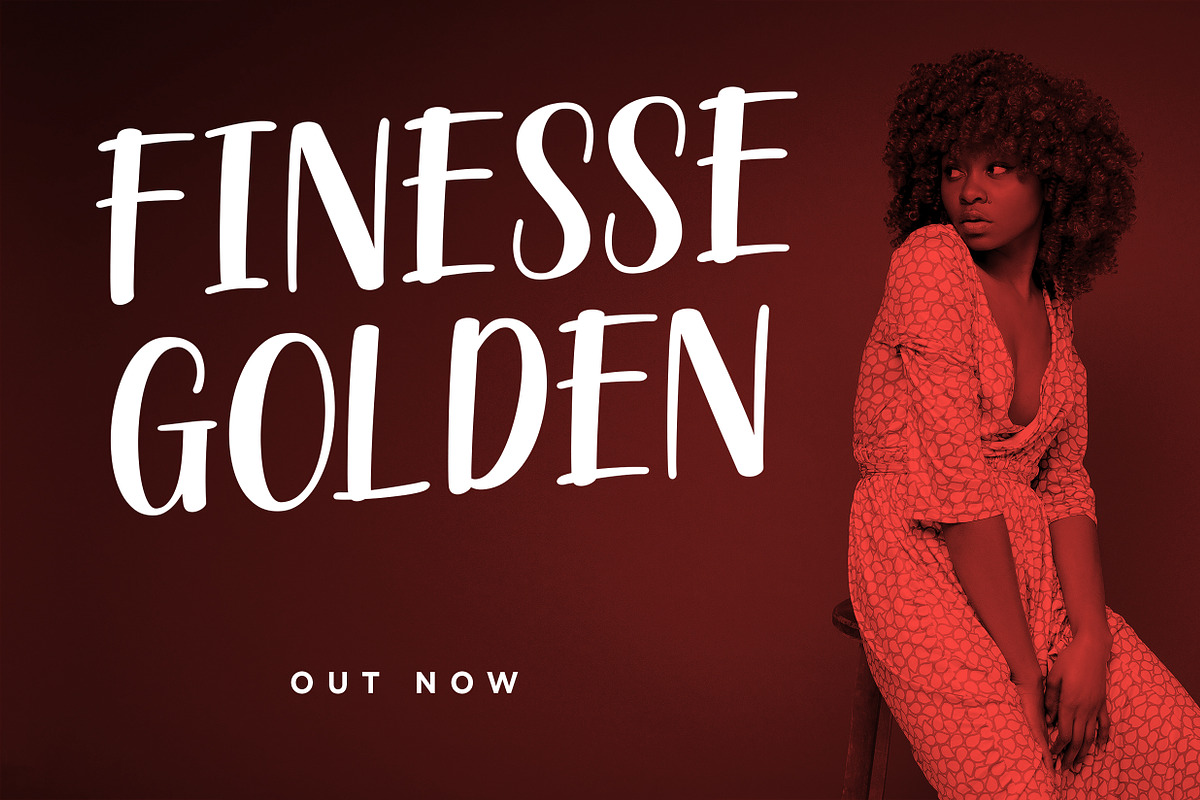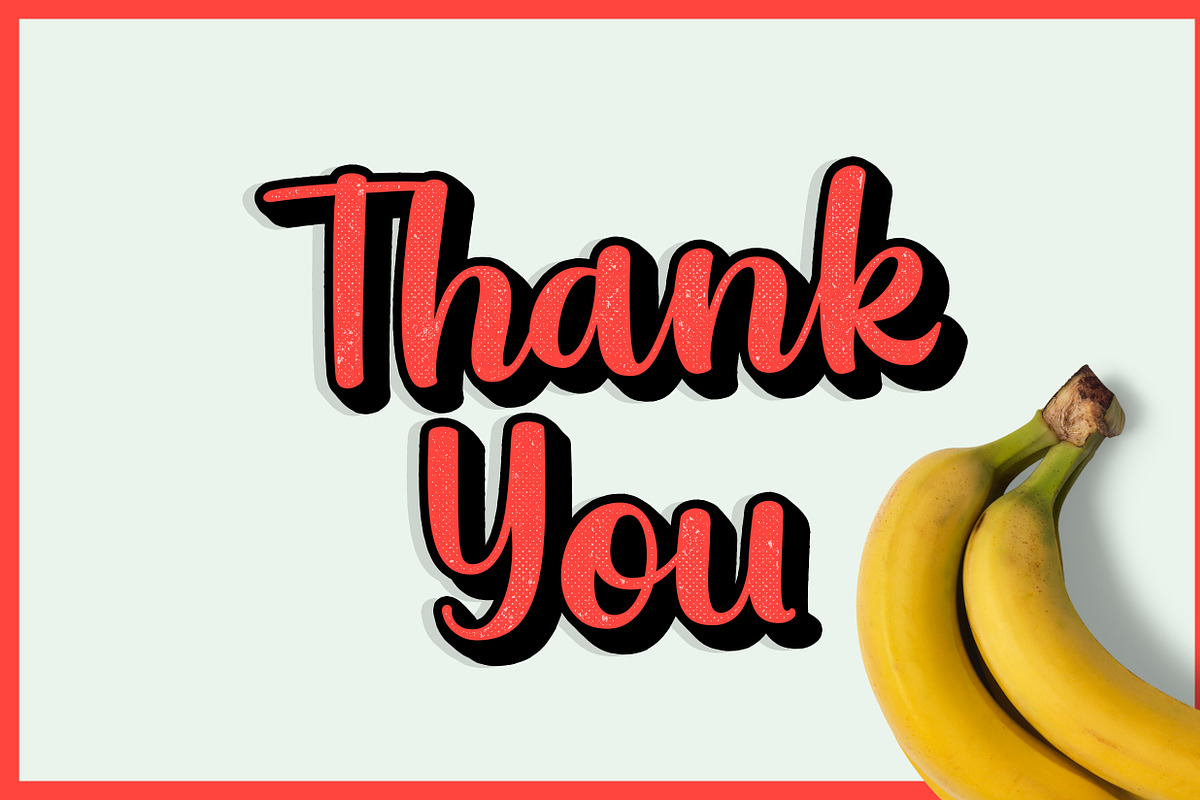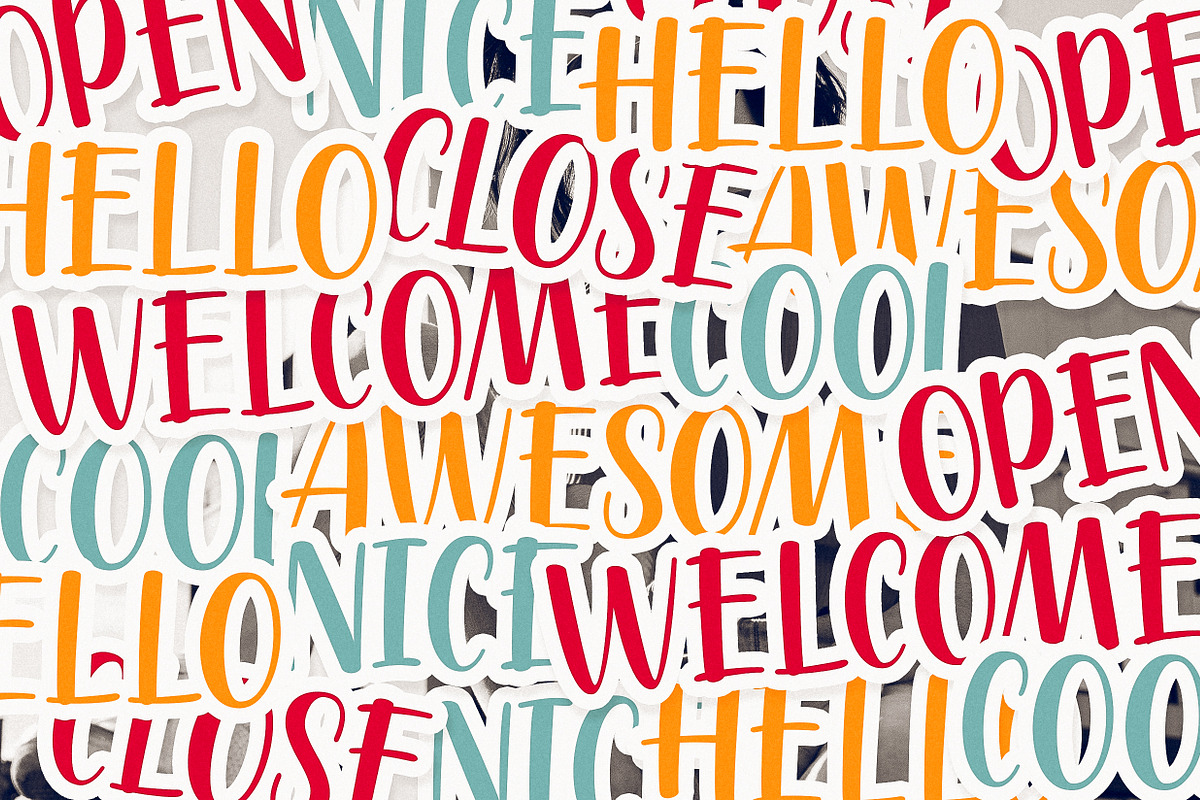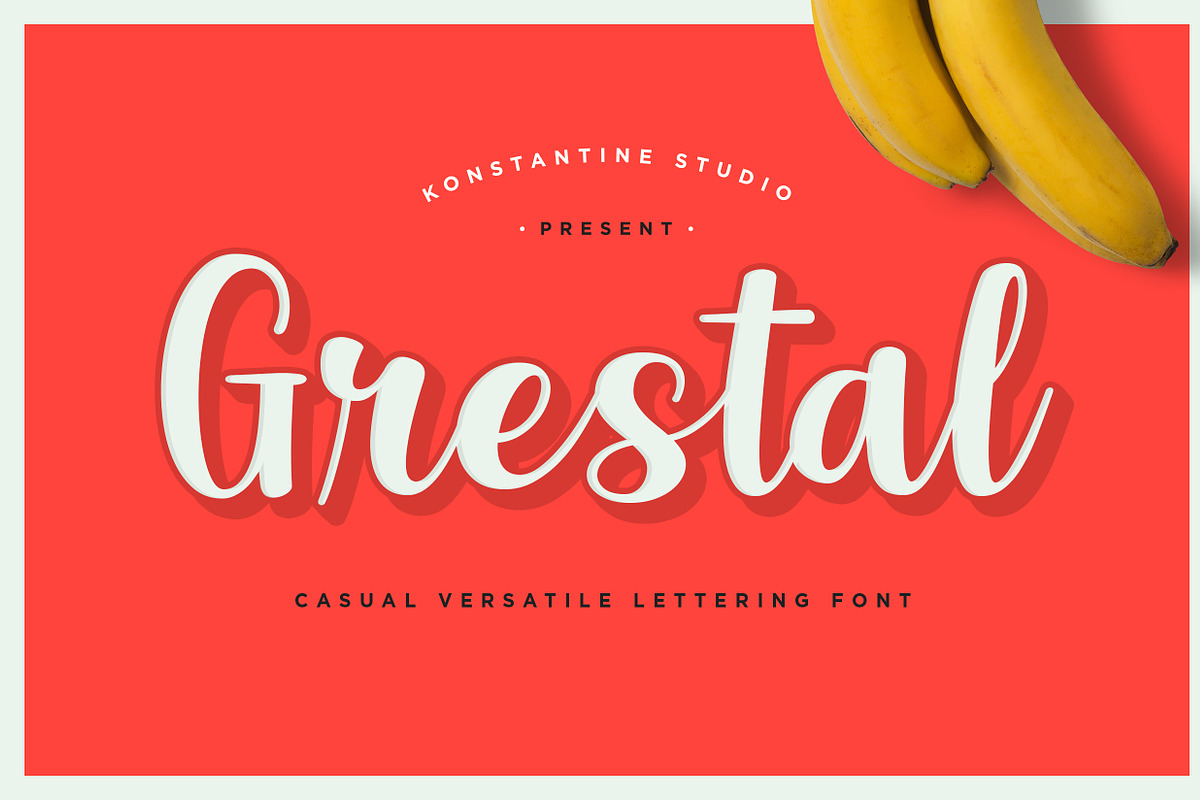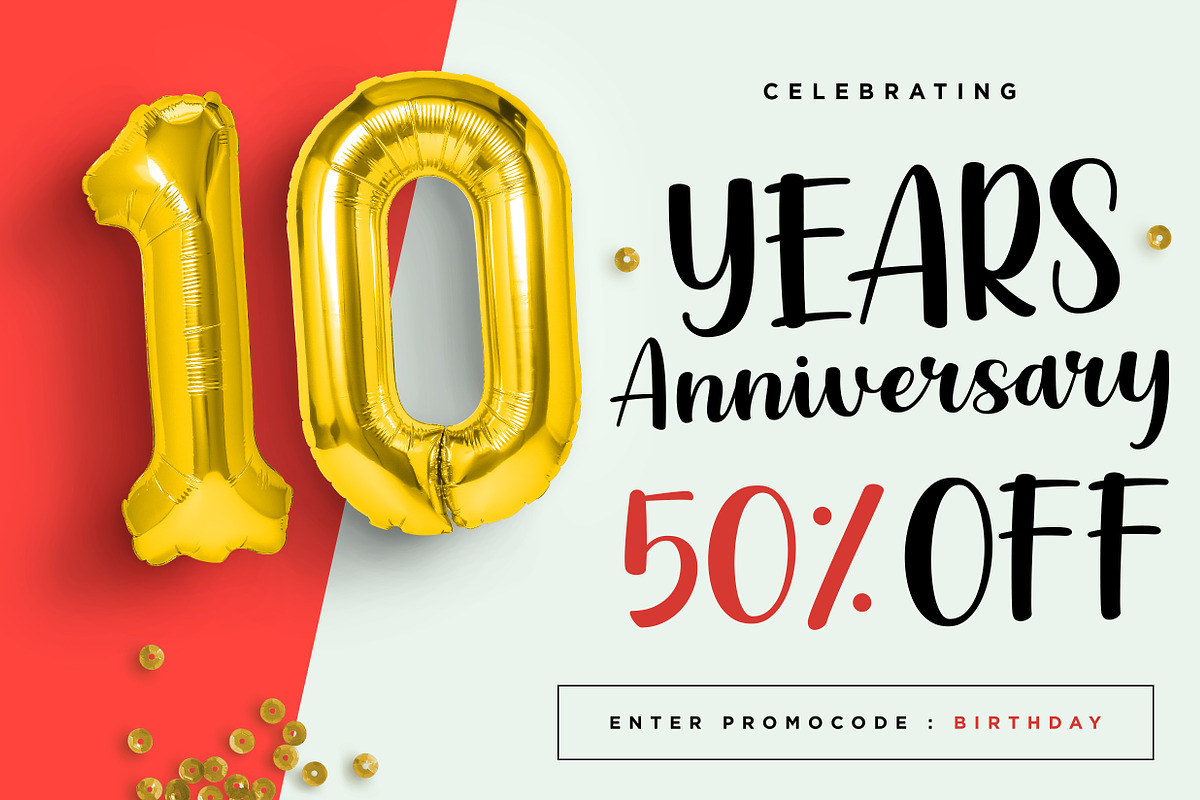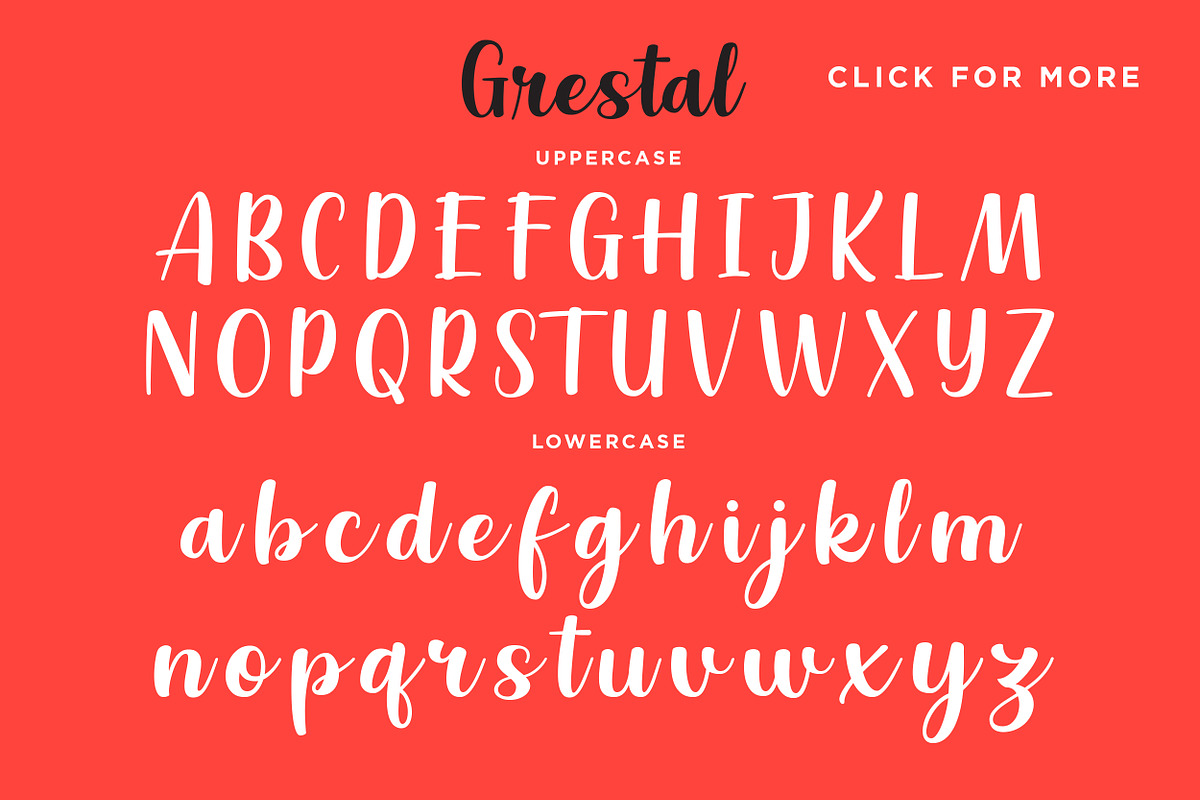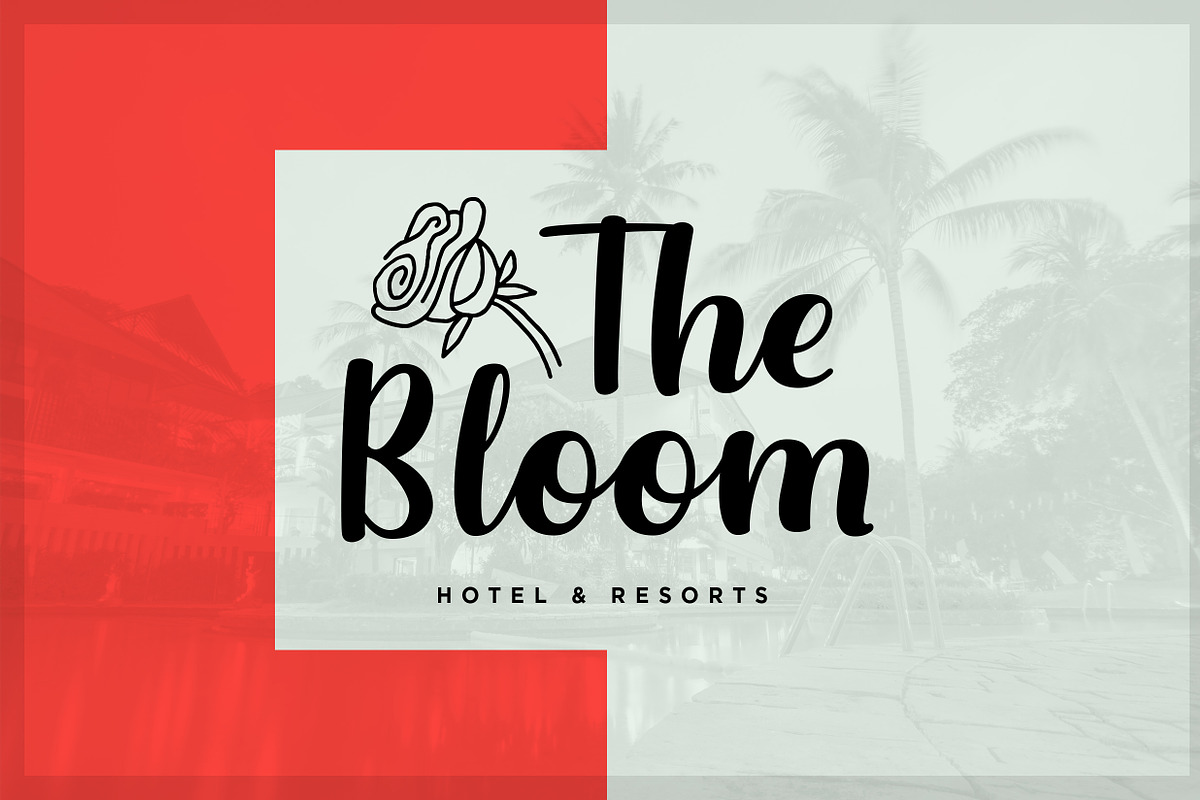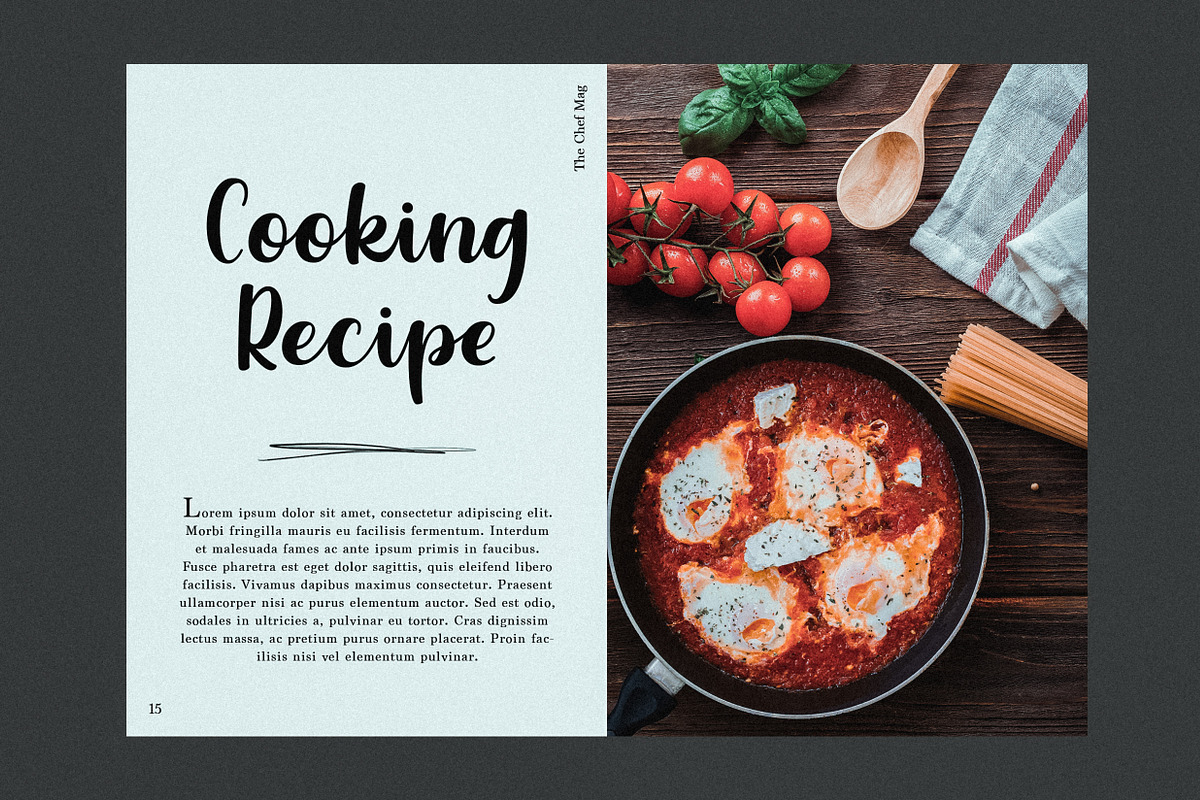
Grestal - Casual Lettering Font
Please welcome, Grestal. A modern casual calligraphic font with lettering feels. So chill and fun to play with. Perfectly fit for any casual branding, food and beverages packaging, social media branding, logo, a vintage and retro things are an absolute yes too for this font. Send the messages with your design in a fun way with it. Double the happiness!
Packed up with the "without the tail"for every lowercase to end up your words in a proper way.